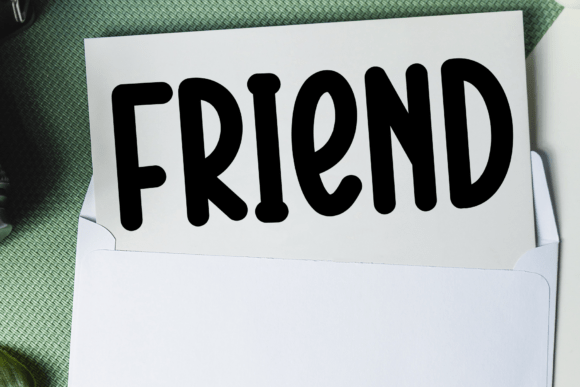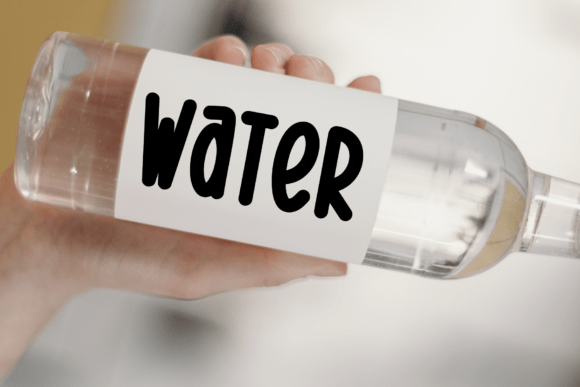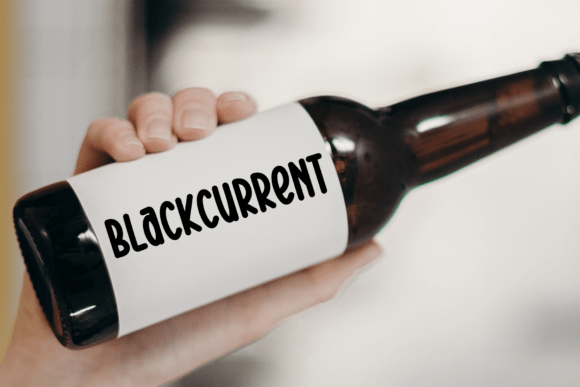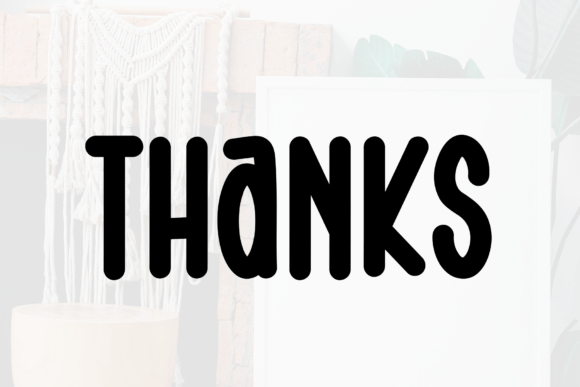
The Grinch Wave Font: A Charming Handwritten Delight for Designers
I’ll never forget the time I was working on a Christmas-themed project for a client, and I just couldn’t find the right font to capture the festive yet cozy atmosphere I was going for. That was until I stumbled upon the Grinch Wave font. Its smooth strokes and organic lines immediately caught my attention, and I knew I had found the perfect fit. In this article, I’ll share my experience with this charming handwritten font, its features, and how to make the most of it in your design projects.
A Personal Review of Grinch Wave
Here’s what I love about Grinch Wave:
- ✨ Heartfelt perfection: Grinch Wave exudes a sense of warmth and coziness, making it perfect for designs that require a personal touch.
- ✅ Smooth strokes and organic lines: The font’s fluid lines create a relaxed atmosphere, ideal for a variety of design projects.
- 🌈 Versatility: Grinch Wave can be used for branding, invitations, social media graphics, and more.
While Grinch Wave is an excellent font, it’s not without its quirks:
- 🤔 Limited character set: Grinch Wave may not have an extensive character set, but it does include essential characters and glyphs.
- ⚠️ Not suitable for body text: Due to its decorative nature, Grinch Wave is best used for headings, titles, or short paragraphs.
The Story Behind Grinch Wave
Grinch Wave was designed by a talented typographer who wanted to create a font that captured the essence of warmth and coziness. Inspired by the whimsical world of Dr. Seuss, the designer aimed to create a font that would bring a smile to people’s faces. With its smooth strokes and organic lines, Grinch Wave is the perfect result of this creative endeavor.
| What is Grinch Wave font? | Grinch Wave is a charming handwritten font filled with a sense of heartfelt perfection. |
| What can I use Grinch Wave for? | Grinch Wave is perfect for branding, invitations, social media graphics, and more. |
| Is Grinch Wave suitable for body text? | No, Grinch Wave is best used for headings, titles, or short paragraphs due to its decorative nature. |